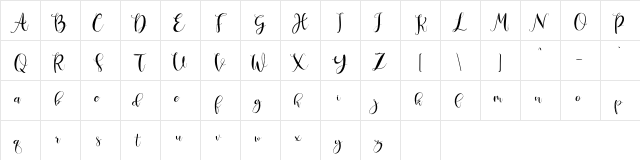
Deliciously Regular Regular
| Designer | Donis Miftahudin |
Design Context for Deliciously Regular Typeface
Deliciously Regular is a composed and adaptable typeface that performs quietly and consistently across a wide range of design contexts.